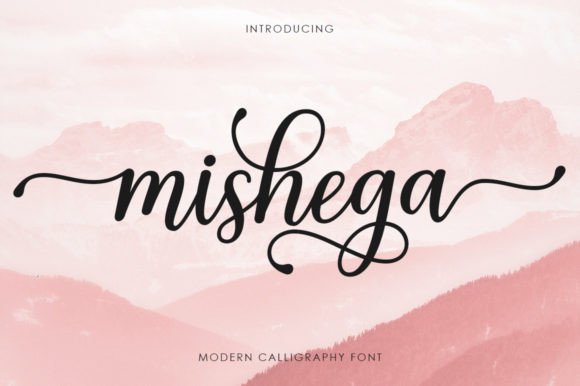
Dive into the world of Mishega Script, a modern calligraphy font that exudes elegance and charm. This captivating font, crafted by the talented designers at Megatype, is a symphony of graceful lines, whimsical swashes, and enchanting letterforms. Prepare to be mesmerized as Mishega Script transforms your creative projects into masterpieces.
With its alluring Regular style, Mishega Script invites you to explore a world of endless possibilities. Its casual yet refined nature makes it a perfect choice for a wide array of design endeavors. Whether you're crafting a captivating logo, designing eye-catching product packaging, or creating unforgettable wedding invitations, Mishega Script will add a touch of sophistication and charm to your creations.
Step into the realm of branding and let Mishega Script elevate your visual identity. Its distinctive character adds a touch of elegance to headlines, signage, and labels, ensuring your brand stands out from the crowd. Unleash your creativity and let Mishega Script weave its magic, leaving a lasting impression on your audience.
Embrace the beauty of written words with Mishega Script. Its delicate swashes and flowing curves add a touch of artistry to book covers, posters, and quotes. Whether you're crafting a heartfelt letter, designing a stunning poster, or sharing words of wisdom, Mishega Script will bring your words to life in a way that captivates and inspires.